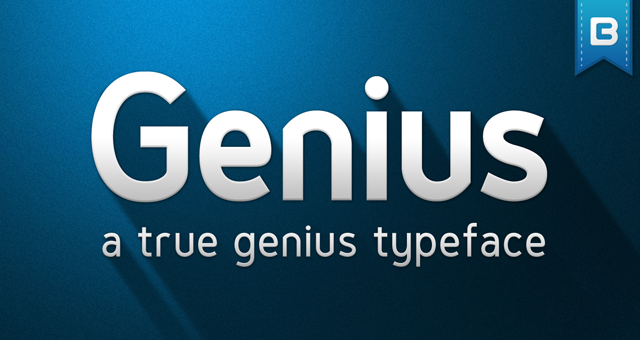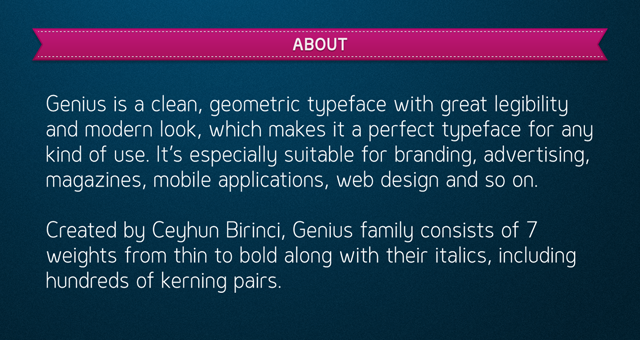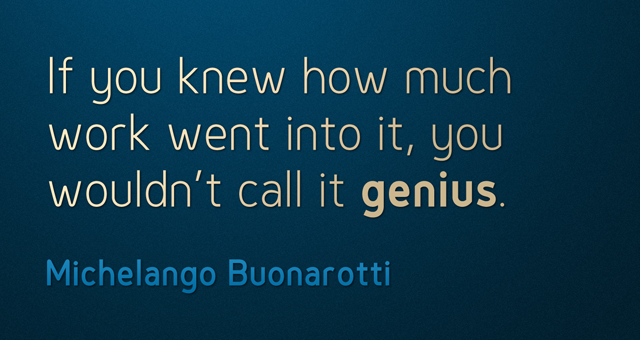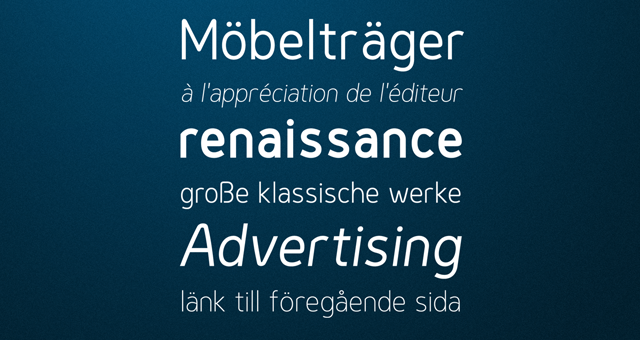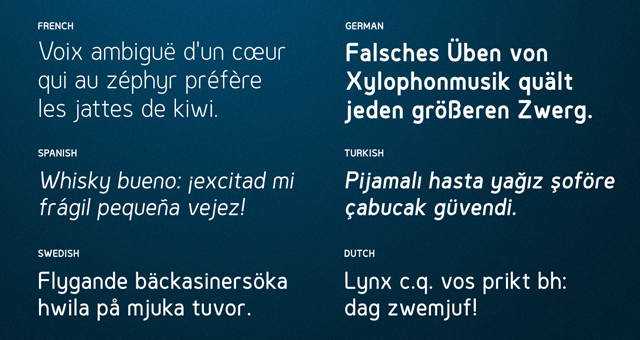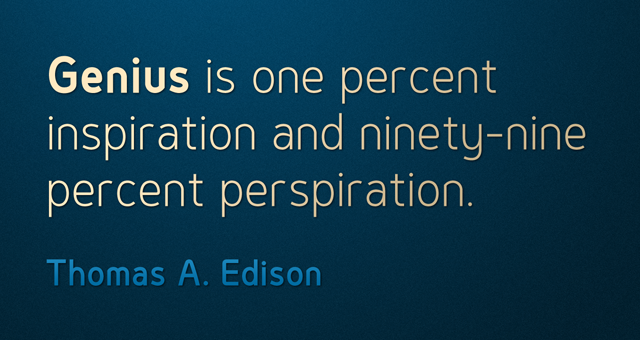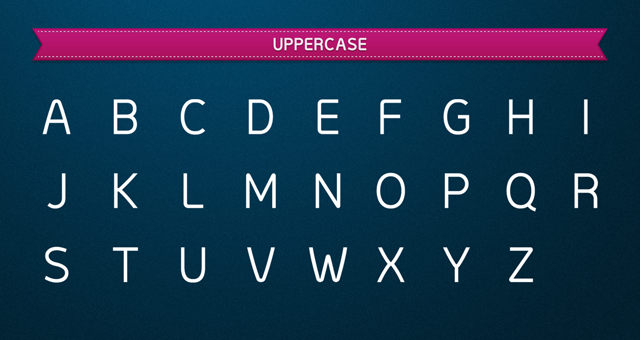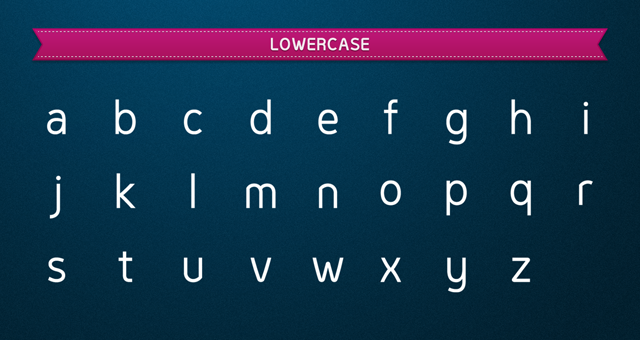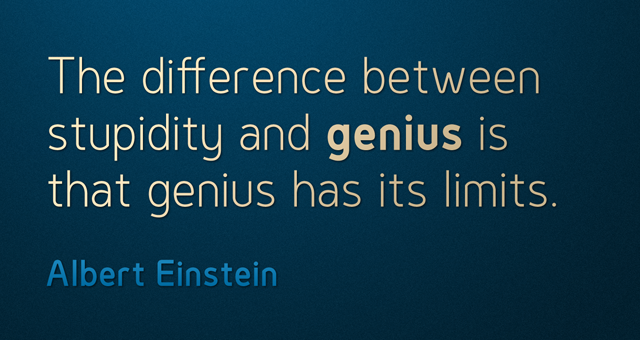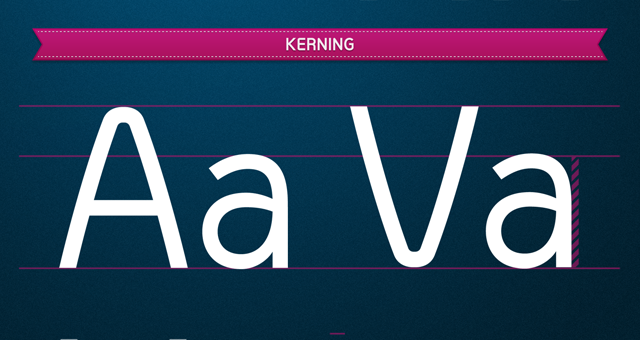
Genius
Genius is a clean, geometric typeface with great legibility and modern look, which makes it a perfect typeface for any kind of use. It’s especially suitable for branding, advertising, magazines, web design and so on.
Created by Ceyhun Birinci, the Genius family consists of 7 weights from thin to bold along with their italics, including hundreds of kerning pairs.
Designer: Ceyhun Birinci
Publisher: Ceyhun Birinci